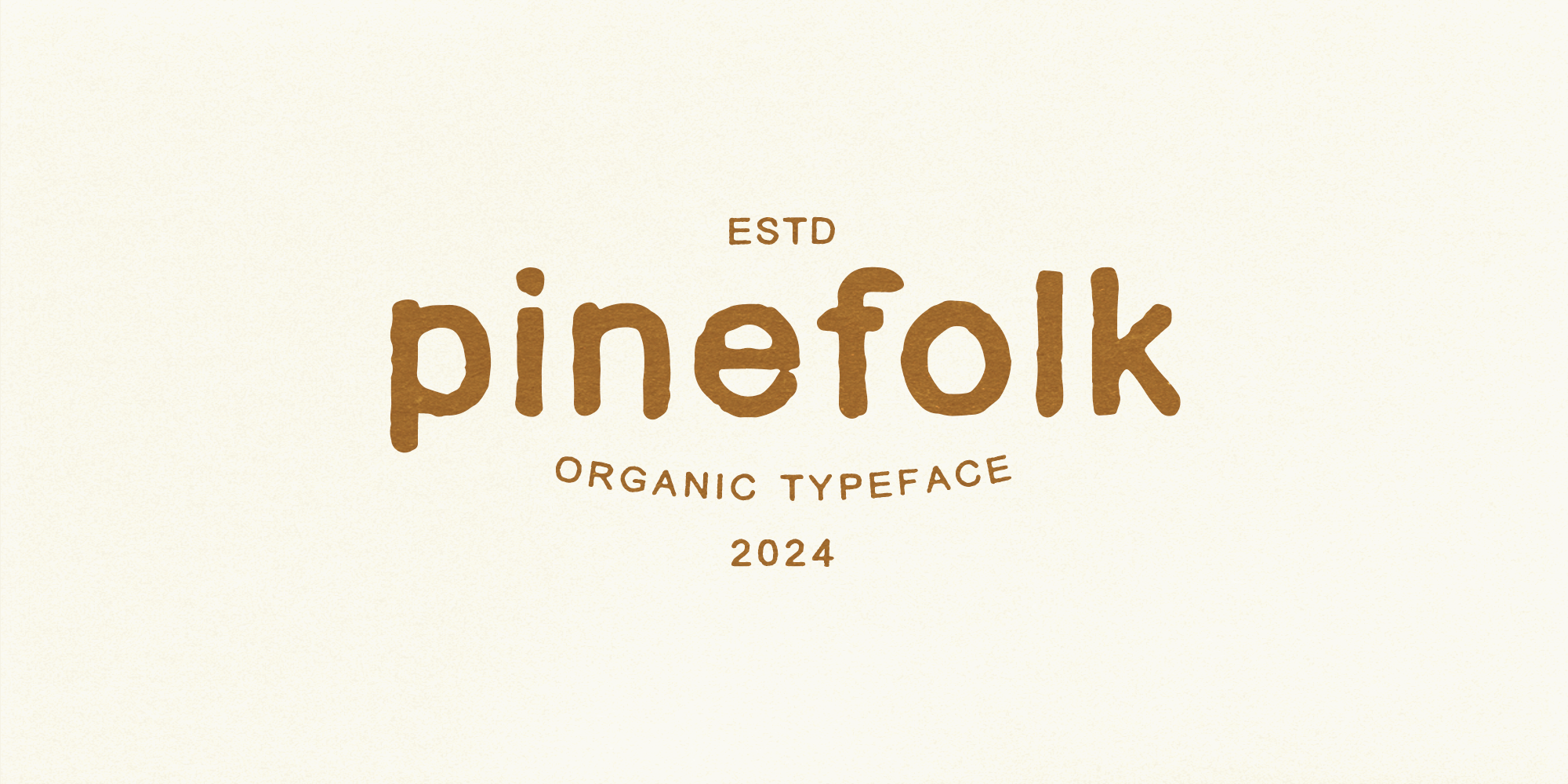
The Pinefolk Font is ideal for branding, logos, packaging, and nature-inspired designs like farm-to-table menus or eco-friendly product labels.
This font is exciting because its organic, handwritten style with textured shapes brings a rustic, authentic charm, evoking the raw beauty of nature.
The Pinefolk Font family includes a single style, Pinefolk Regular, designed to deliver a cohesive, handcrafted feel for earthy projects.
Bring a touch of nature to your designs with the Pinefolk Font Free Download, a typeface that captures the essence of rustic authenticity. Perfect for designers seeking a warm, organic aesthetic, this handwritten font shines in eco-conscious branding, artisanal packaging, and outdoor-themed graphics. Its textured, slightly irregular letterforms create a hand-drawn look that feels genuine and inviting, making it a standout choice for farm-to-table restaurants or sustainable product lines.
The Pinefolk Font performs beautifully in both digital and print formats. Its natural curves enhance website headers or social media visuals, while its charm elevates printed materials like posters and labels. This font pairs effortlessly with minimalist or earthy design elements, offering flexibility for creative projects. Its playful yet professional vibe makes it suitable for children’s books or casual branding as well.
With its single Regular style, the Pinefolk Font provides a focused, cohesive option for designers. Its organic texture ensures consistency across applications, from logos to promotional materials. For those exploring its potential, the Pinefolk Font Free Download lets you test its rustic appeal before purchasing for commercial use.